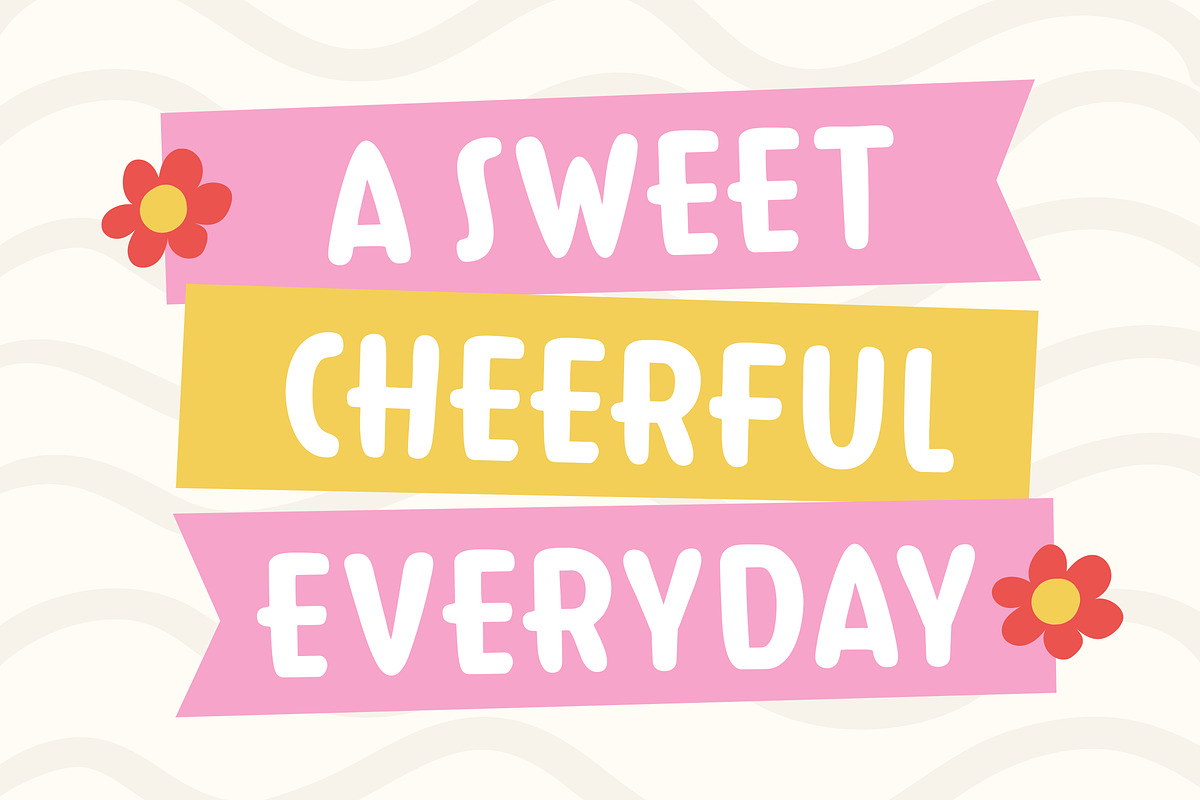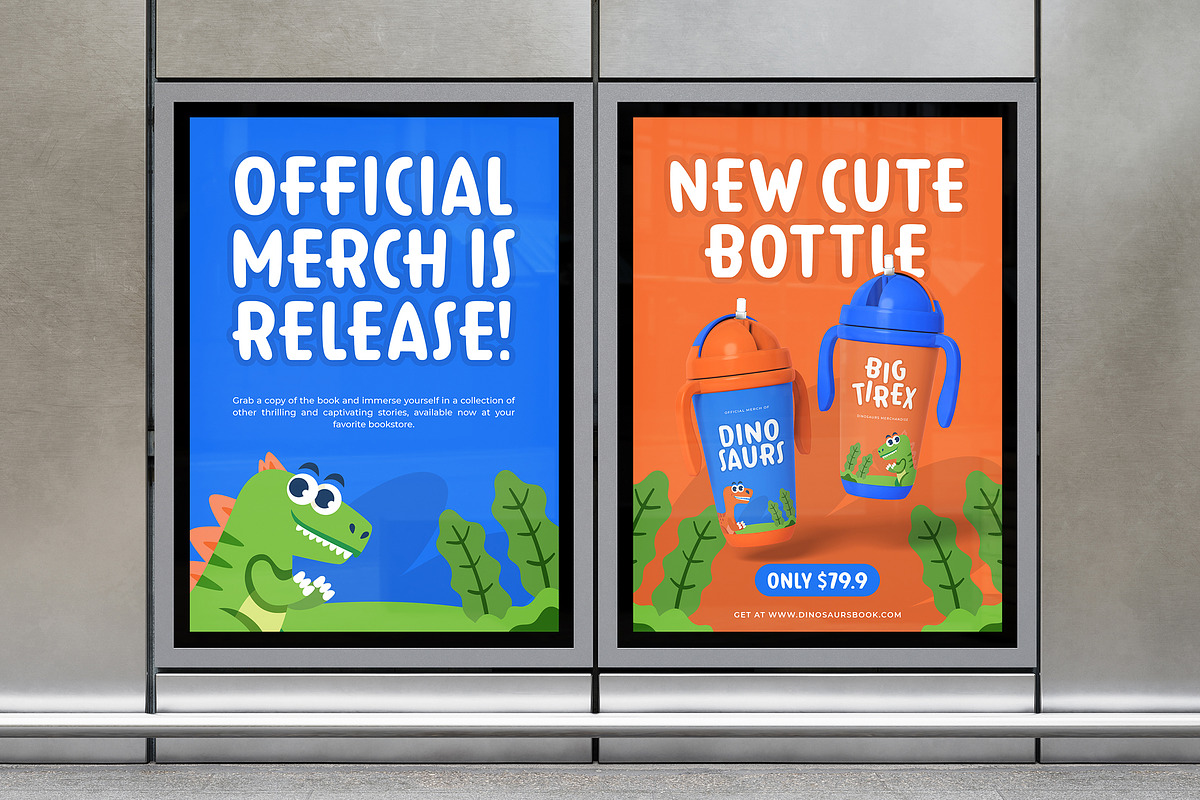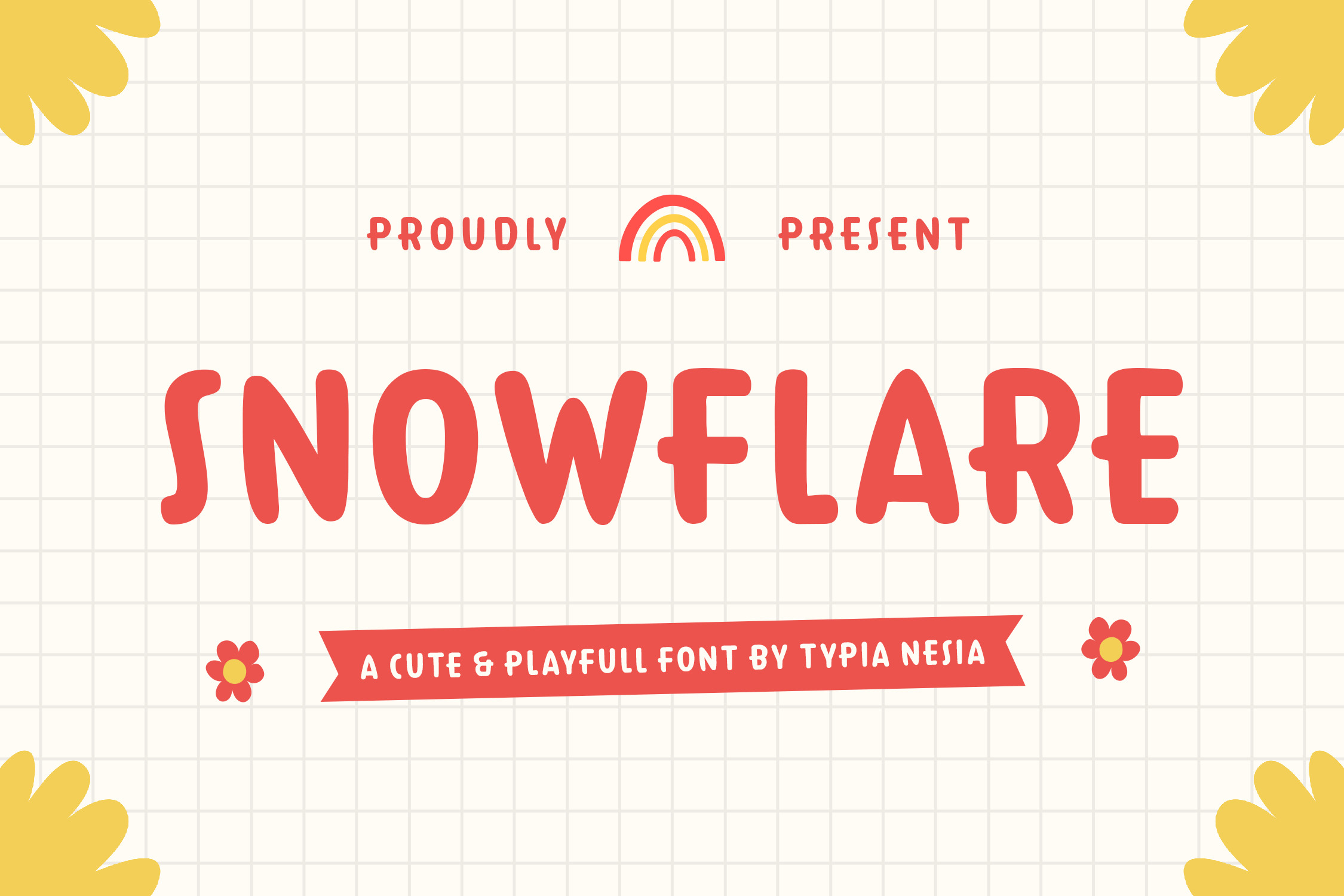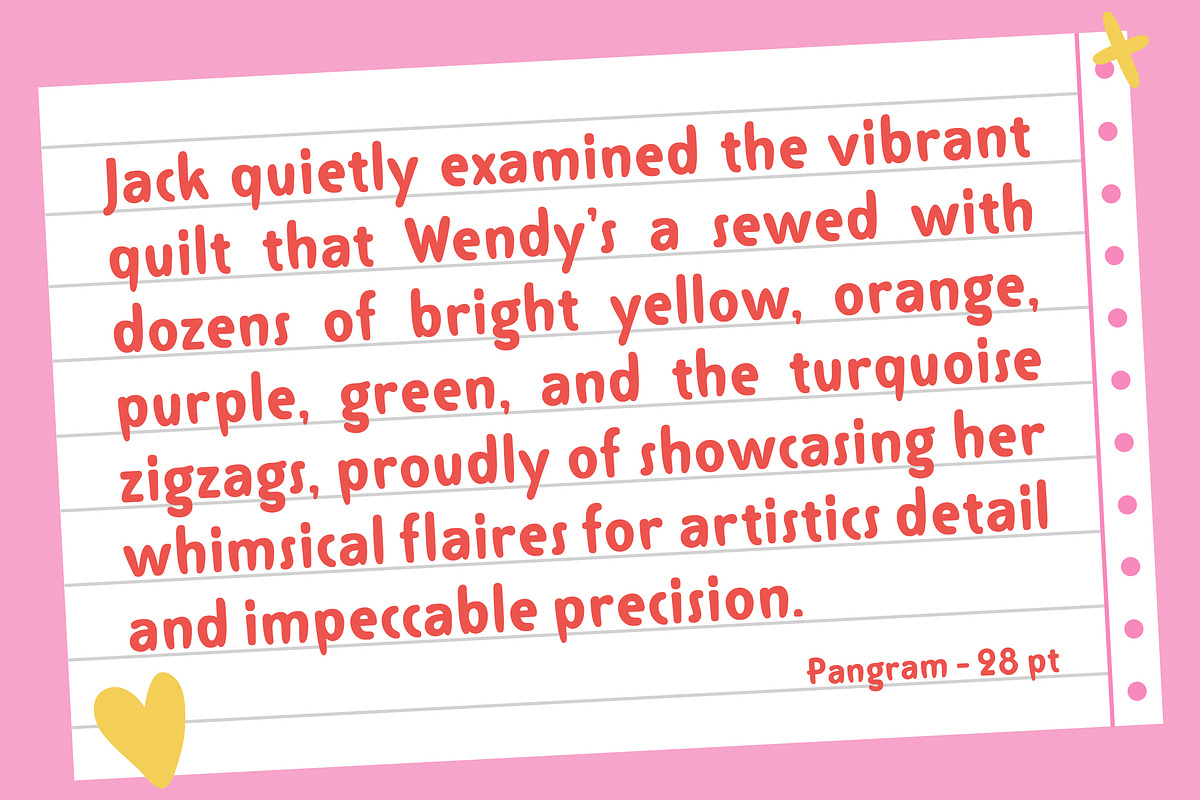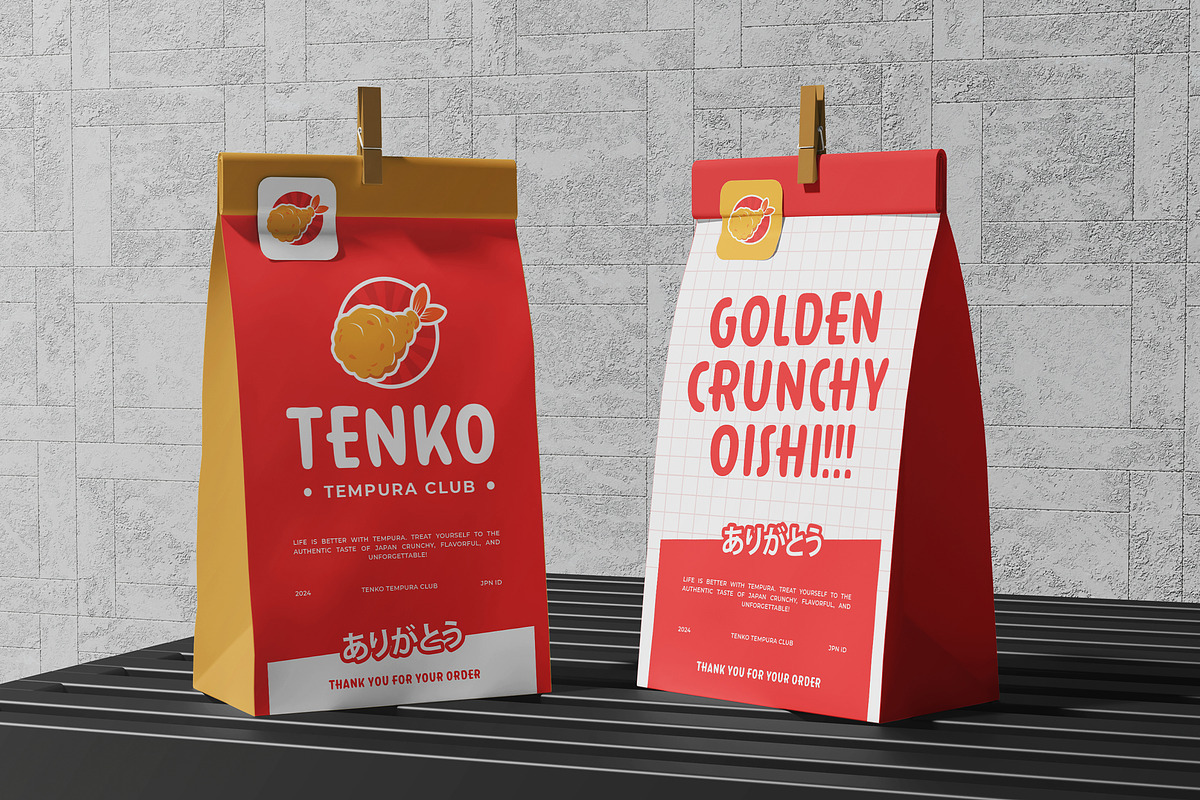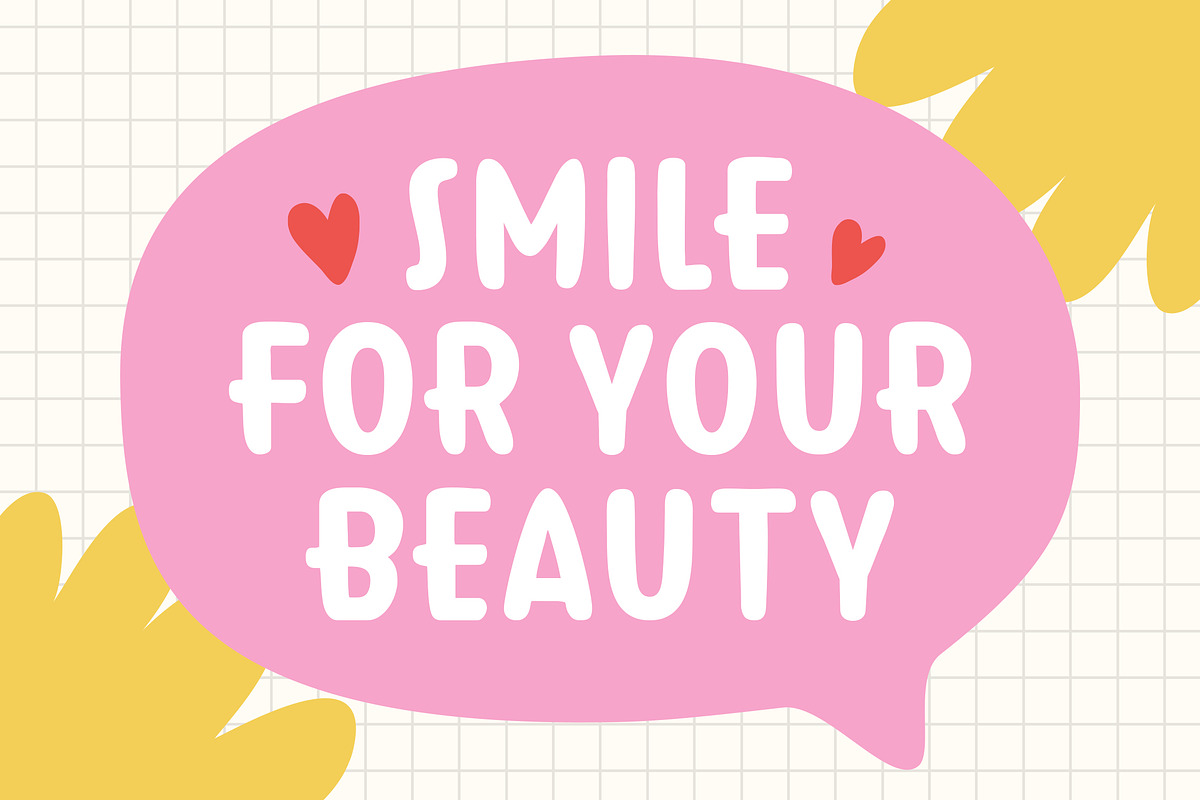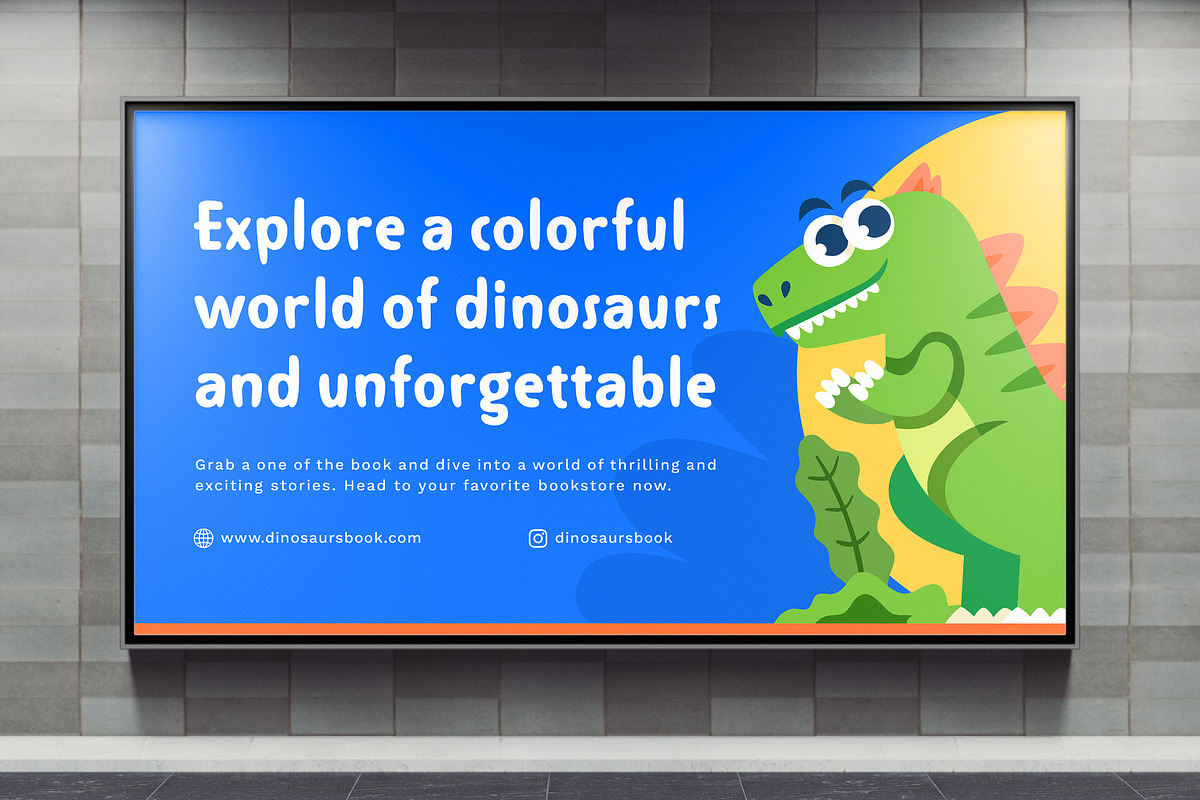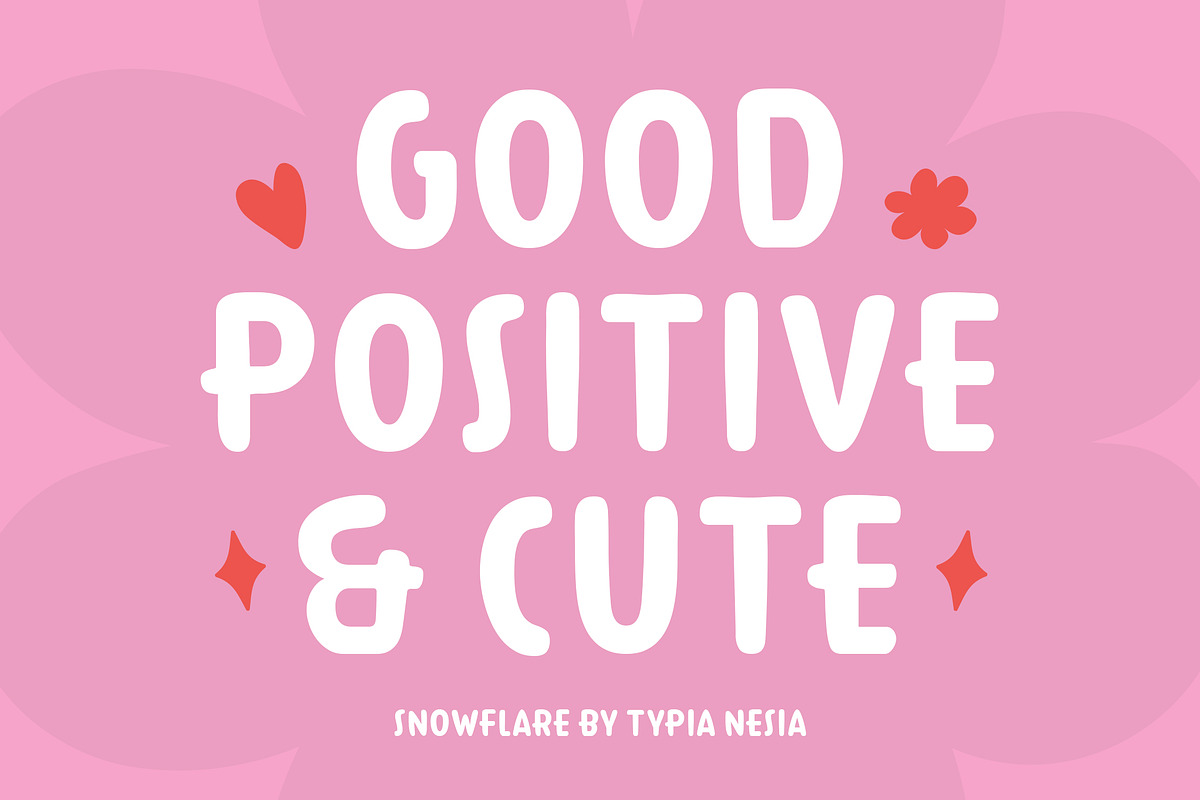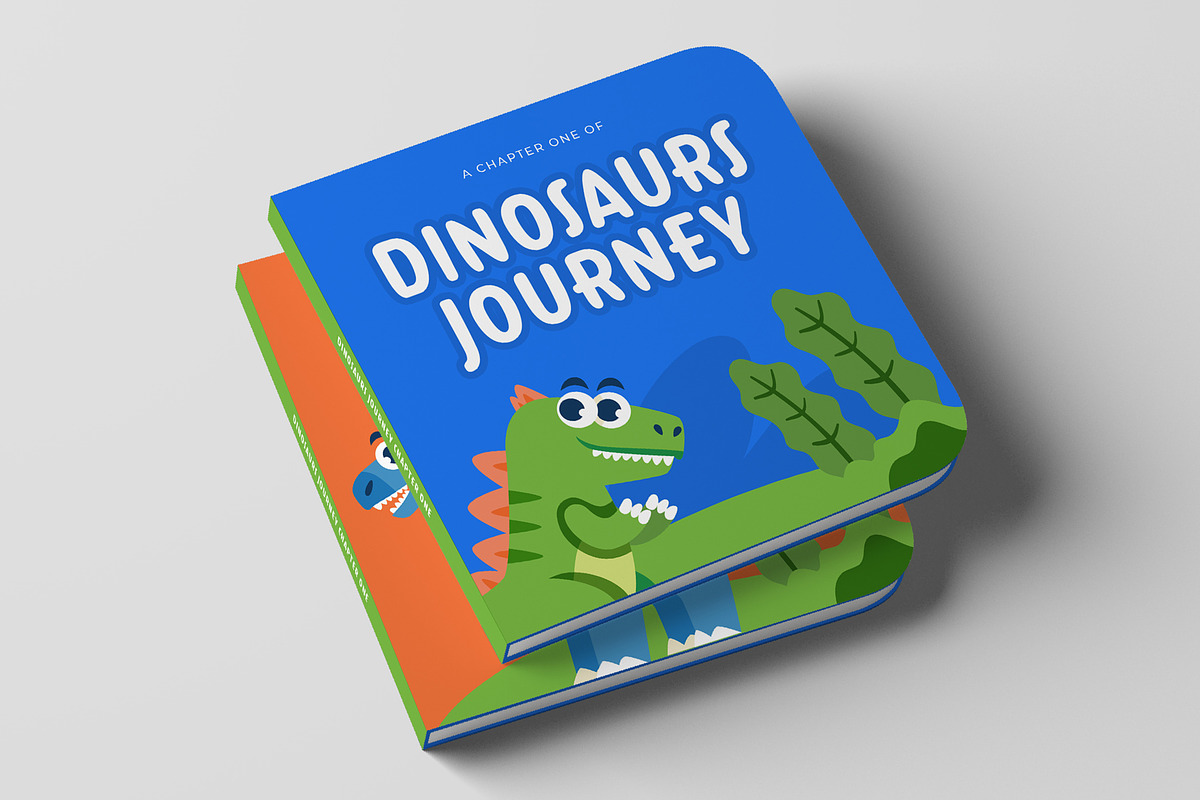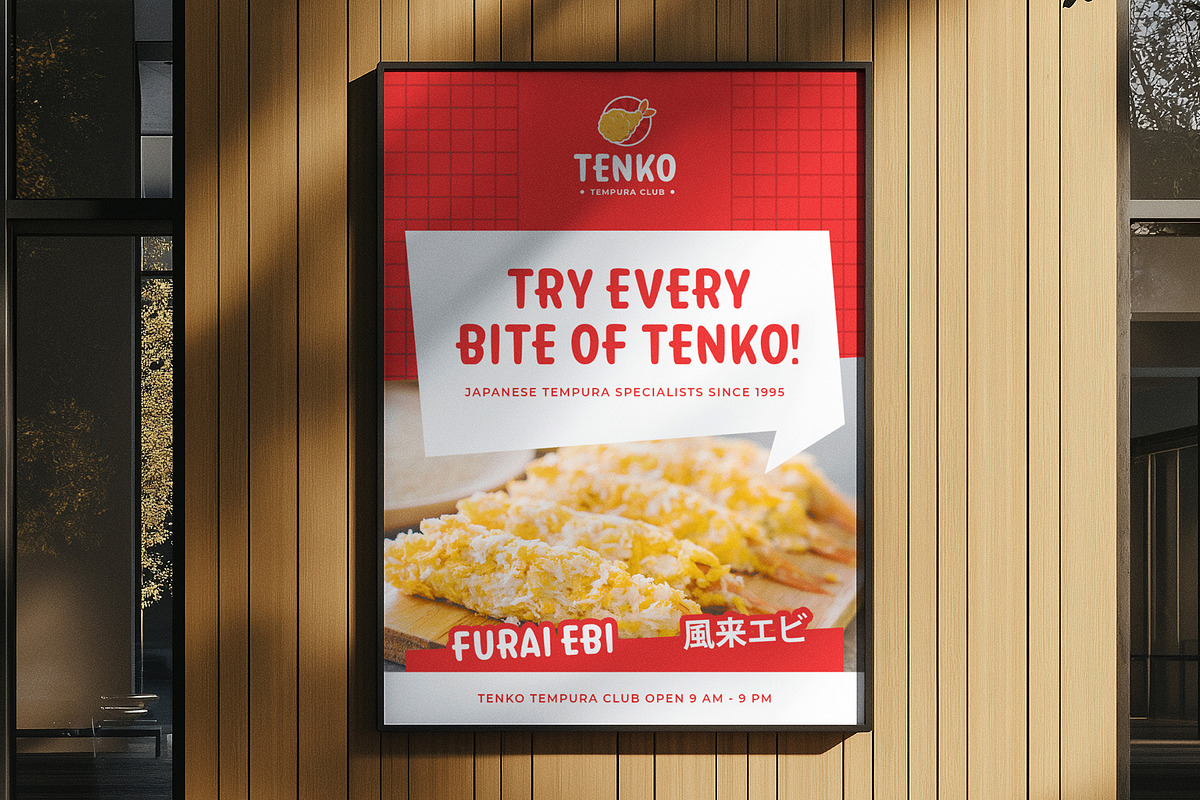
Snowflare - Cute & Playful Font
Snowflare - Cute & Playful Font - Bold Fun Kids Game Cartoon Display Font
Snowflare is a cute and playful font crafted to infuse your designs with fun and personality. Its cheerful style is ideal for adding a touch of charm and creativity to various projects, such as branding, social media graphics, children's books, invitations, posters, packaging, advertising, greeting cards and any creative project that calls for a delightful and whimsical touch. Comes with versatile features, including uppercase and lowercase characters, punctuation, numerals, ligatures, and alternates to make your designs truly unique. Additionally, it supports multiple languages, ensuring global compatibility for your projects. Snowflare is designed to help you create professional yet playful designs. Whether you're a graphic designer, illustrator, or DIY creative, this font offers the tools to elevate your work with a lively, approachable vibe.